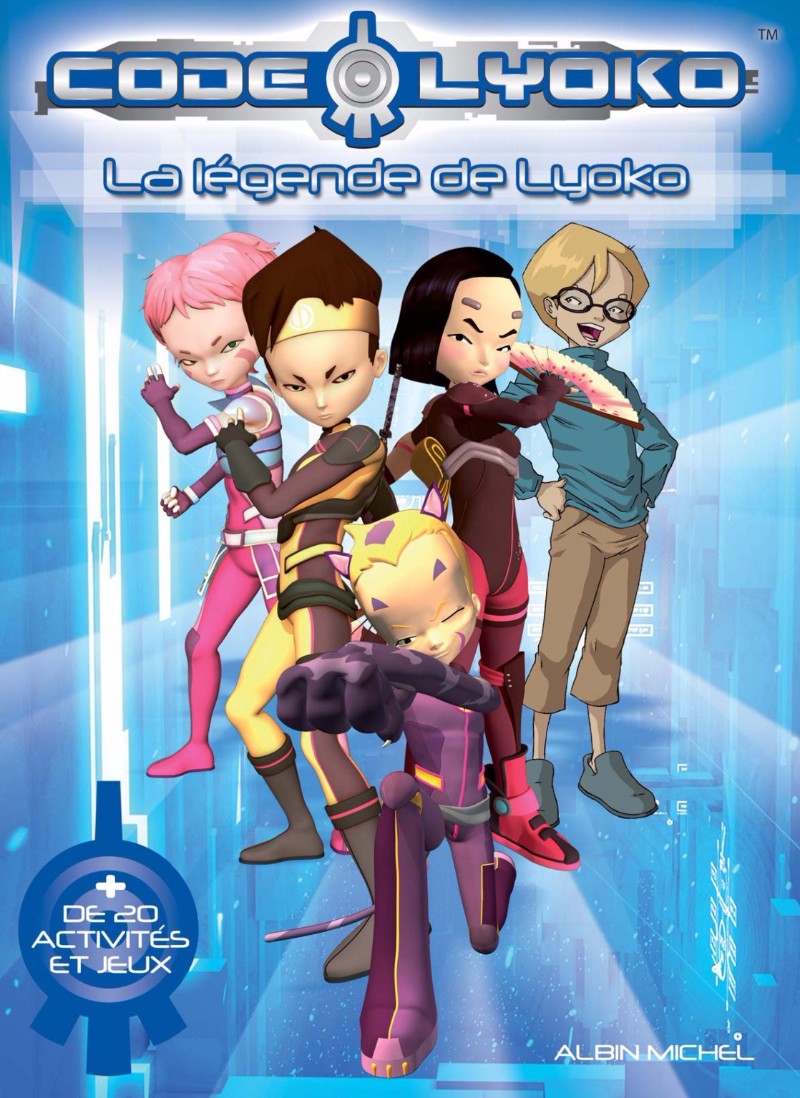
Code Lyoko Font
AnimationCode Lyoko is an animated science fiction series that follows a group of high school students who discover a virtual world called Lyoko, which is home to a virus. Using advanced virtual reality suits and weapons, the students must use their programming and computer science skills to defeat the virus.
The Code Lyoko television series logo uses a squarish display font called Gunship, designed by Iconian Fonts. It comes with a total of 23 fonts and is available for free download in the Fonts Used Section. A sequel to the TV series titled Code Lyoko: Evolution premiered in 2012 with a new logo. Dlynk created a font based on the new logo called Evolufont. You can also download it for free in Fonts Used Section.